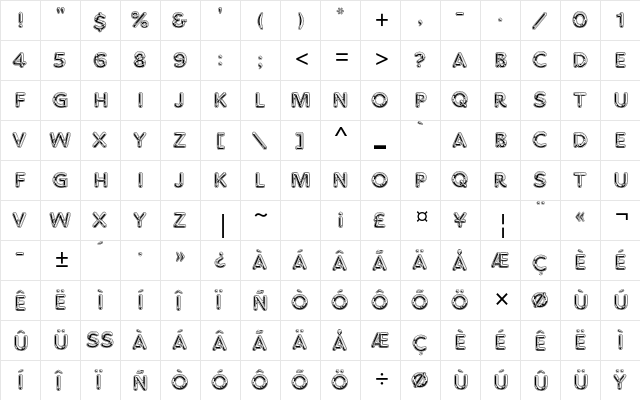
Chromium One Std Regular
| Designer | David Harris |
Design Context for Chromium One Std Typeface
Chromium One Std is a composed and adaptable typeface that performs quietly and consistently across a wide range of design contexts.